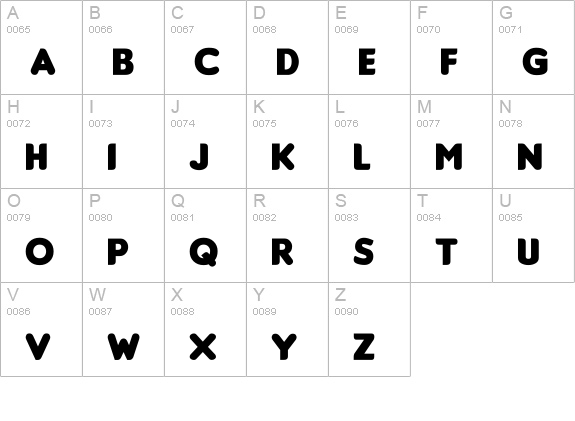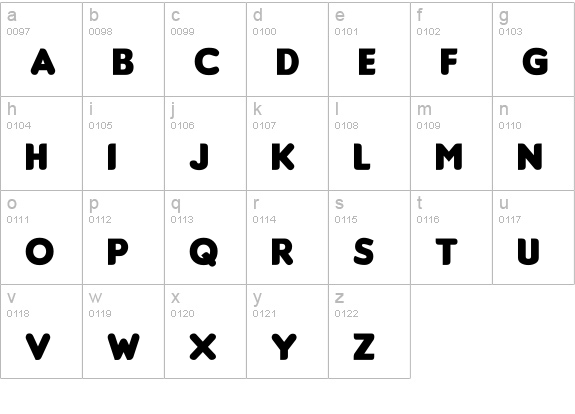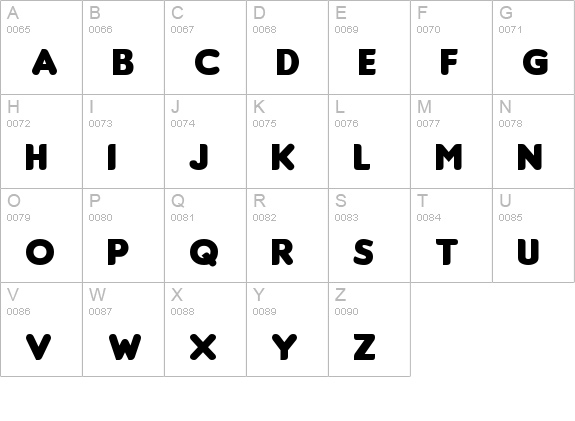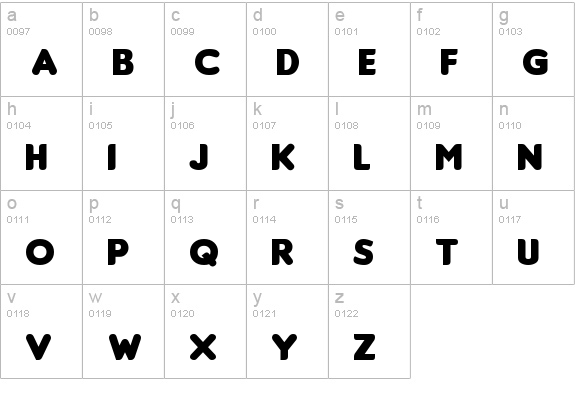
Insaniburger with Cheese Font Details
Introducing the extraordinary Insaniburger with Cheese font, a typography marvel that is sure to make your designs stand out from the crowd. This font is a true feast for the eyes, with its bold and playful letterforms that exude a sense of fun and excitement. With its unique and quirky style, Insaniburger with Cheese is perfect for adding a touch of personality to any project. But what sets this font apart from the rest is its incredible feature - it is absolutely free! Yes, you heard it right. Insaniburger with Cheese font is freely available to download at FontsMarket.com, ensuring that you can unleash your creativity without any financial constraints. Whether you're a professional designer, a creative hobbyist, or a student, this font is a true game-changer. Designed with versatility in mind, Insaniburger with Cheese can be used in a wide range of design projects. From eye-catching logos and branding materials to vibrant posters and social media graphics, this font will make your creations pop with its energetic and dynamic presence. Its bold and legible characters ensure maximum impact, making it perfect for headlines, titles, and attention-grabbing text. Unleash your inner artist and let your imagination run wild with Insaniburger with Cheese font. Its captivating design and free availability make it an essential addition to your font collection. Download it today at FontsMarket.com and embark on a typographic adventure like no other. Get ready to astonish your audience and elevate your designs to new heights with this one-of-a-kind font.